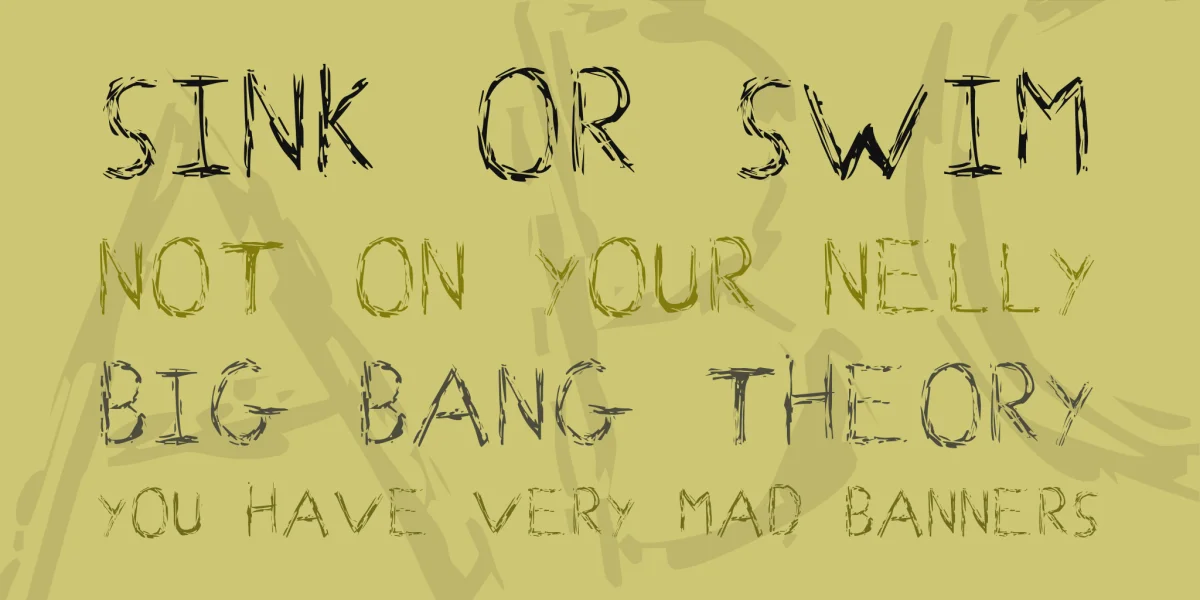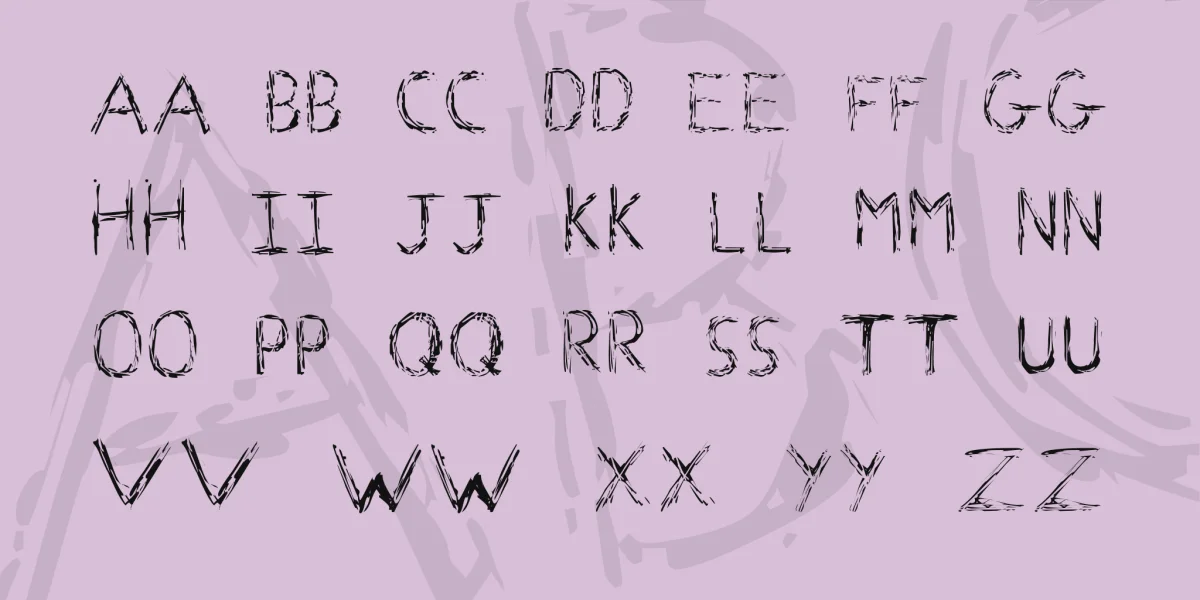
(Caps only) is a caps-only font for headlines. The letters are light and internally jagged. This is my first font with my brand new Wacom ArtZII drawing tablet. Expect more soon!